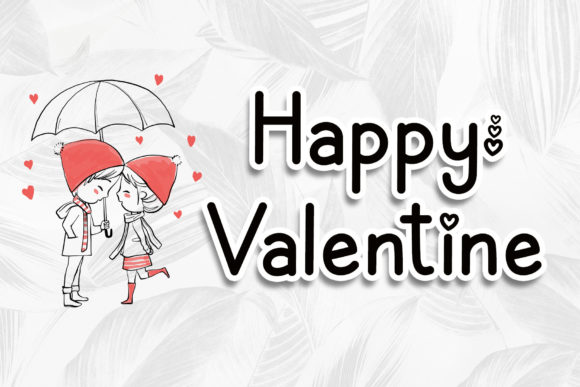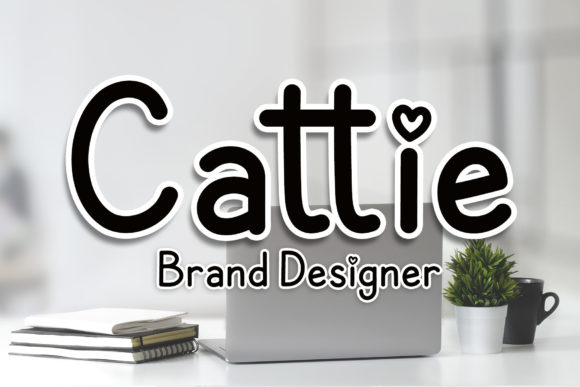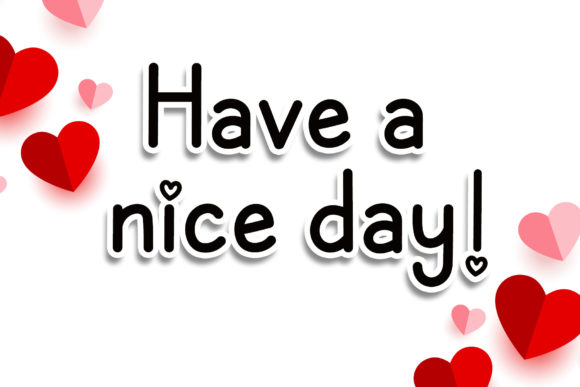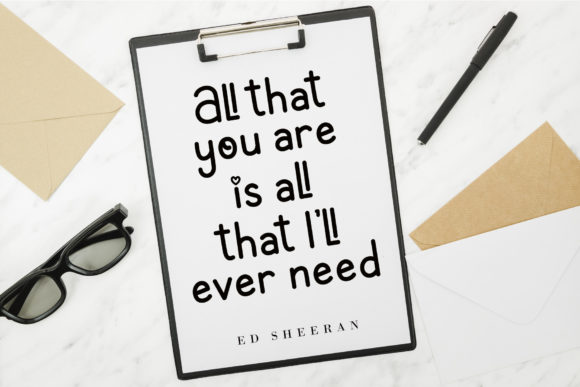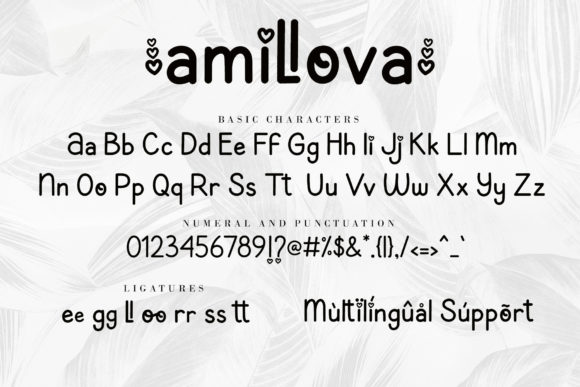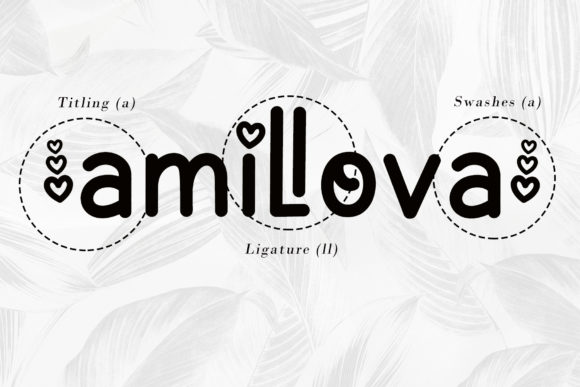
A Romantic Touch for Your Designs: Introducing Amillova Font
As you sit at your desk, surrounded by scraps of paper and empty coffee cups, the creative spark hits you. You’re designing a Valentine’s Day card for your loved one, and you want it to be perfect. The words ‘I love you’ just aren’t enough, and you need a font that captures the essence of romance and sweetness. That’s when you stumble upon the Amillova Font, a beautiful display font that adds a personalized touch to any design.
Amillova Font is the perfect addition to your design arsenal, especially when it comes to creating heartwarming and sentimental pieces. Its romantic and sweet vibe makes it ideal for Valentine-themed greeting cards, wedding invitations, and any other design that requires a touch of love. With its PUA encoding, accessing all the glyphs and swashes is a breeze, allowing you to get creative and add an extra layer of personality to your work.
- Font Family: Amillova is a sans-serif font family.
- Unique Characteristics: Amillova features a clean and modern design, with a unique blend of geometric and organic shapes, making it suitable for a wide range of applications, from digital interfaces to print materials.
I’ve had the chance to play around with the Amillova Font, and here’s my honest take.
- The Amillova Font has a beautiful, elegant feel to it. It’s perfect for adding a touch of sophistication to your designs.
- The font is highly legible, making it great for body text and long passages of text.
- The Amillova Font is highly customizable, with a wide range of styles and weights available.
- The Amillova Font is a bit too ornate for some designs. It may be overwhelming if used too much or in the wrong context.
- The font may not be suitable for very large or very small text sizes. It may lose its elegance and become difficult to read.
- The Amillova Font is not as versatile as some other fonts, and may not work well in certain design styles or themes.
Overall, the Amillova Font is a solid choice for designs that need a touch of elegance and sophistication. However, it’s not a one-size-fits-all solution, and may not be the best choice for every project.
Use Amillova Font for headings and titles to add a touch of elegance and sophistication to your designs.
Experiment with different font sizes and styles to create visual interest and hierarchy in your designs.
Combine Amillova Font with other fonts to create a unique and eye-catching typography style.